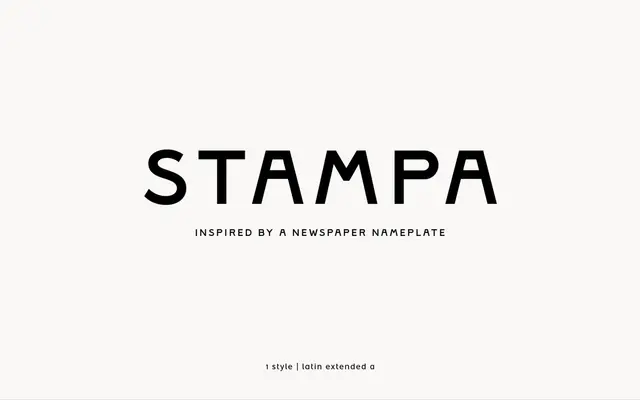
Stampa
atipo foundry · atipo foundry
A single-style stencil display face from atipo, made for posters, packaging and large editorial titling.
Stampa is a display stencil from atipo foundry, released as a single weight rather than a full system. The cut prioritises poster and packaging use, with letterforms broken by stencil bridges that read at distance and carry the rough, applied feel of stencilled signage. Best deployed for headlines, titling and identity moments where the medium itself is part of the message rather than for body copy.
A single-style stencil display face, drawn for posters, packaging and large-scale editorial use rather than text setting.